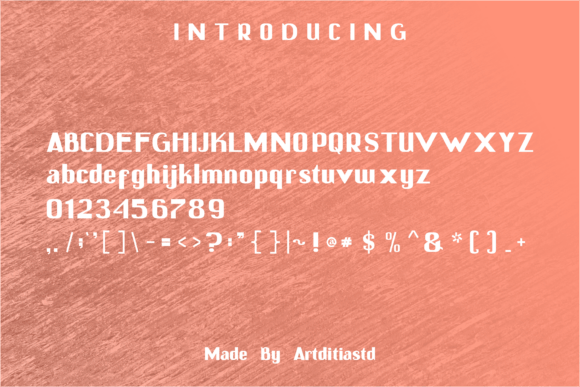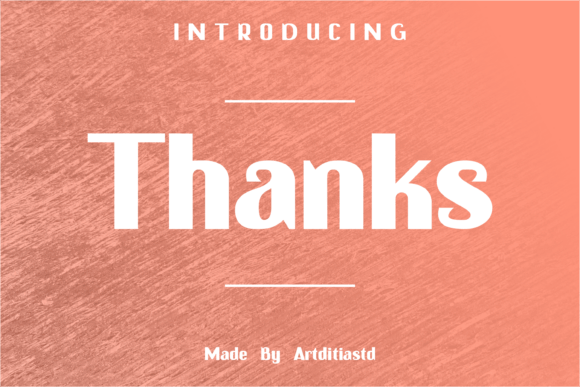
Introduction to Pawira Font
Pawira is an elegant and bold sans serif font.
Fall in love with its incredibly versatile style and use it to create gorgeous wedding invitations, beautiful stationary art, eye-catching social media posts, and much more .
Why Choose Pawira Font?
Pawira Font offers exceptional quality and versatility, making it a valuable addition to your design toolkit. Whether you’re creating for personal projects or commercial use, Pawira Font delivers professional results.